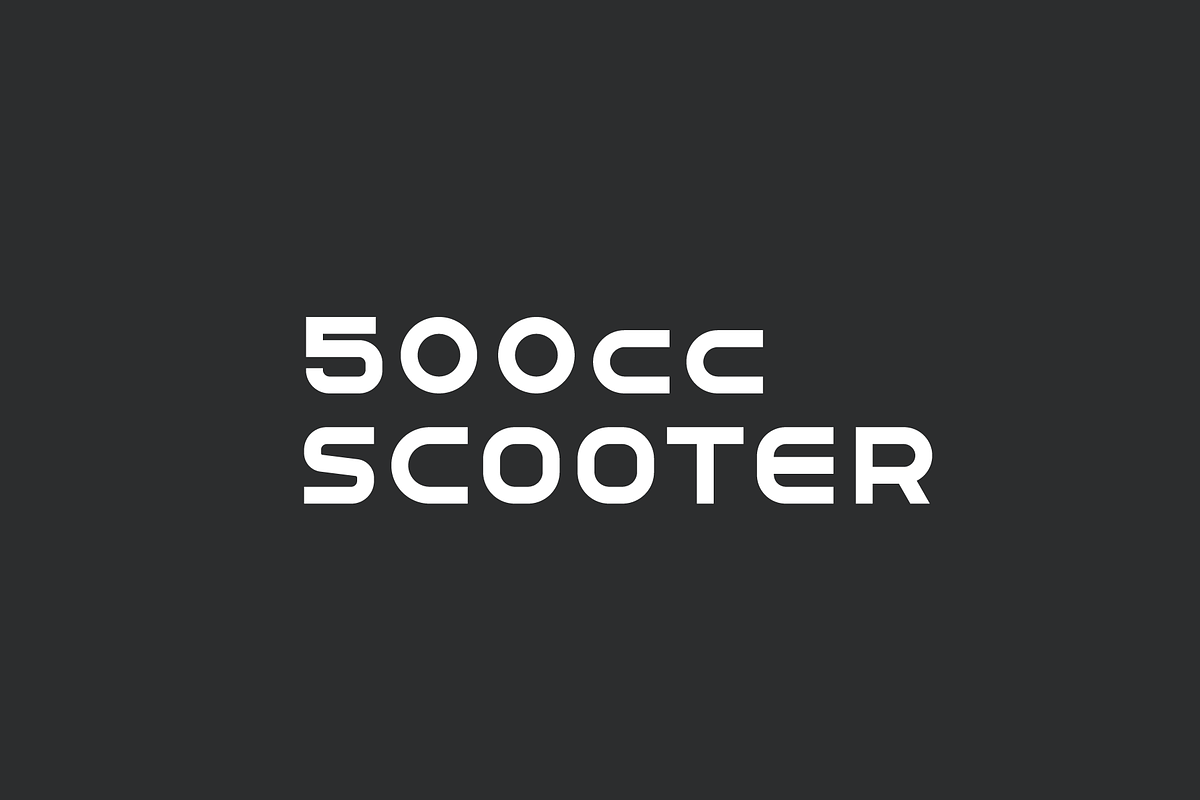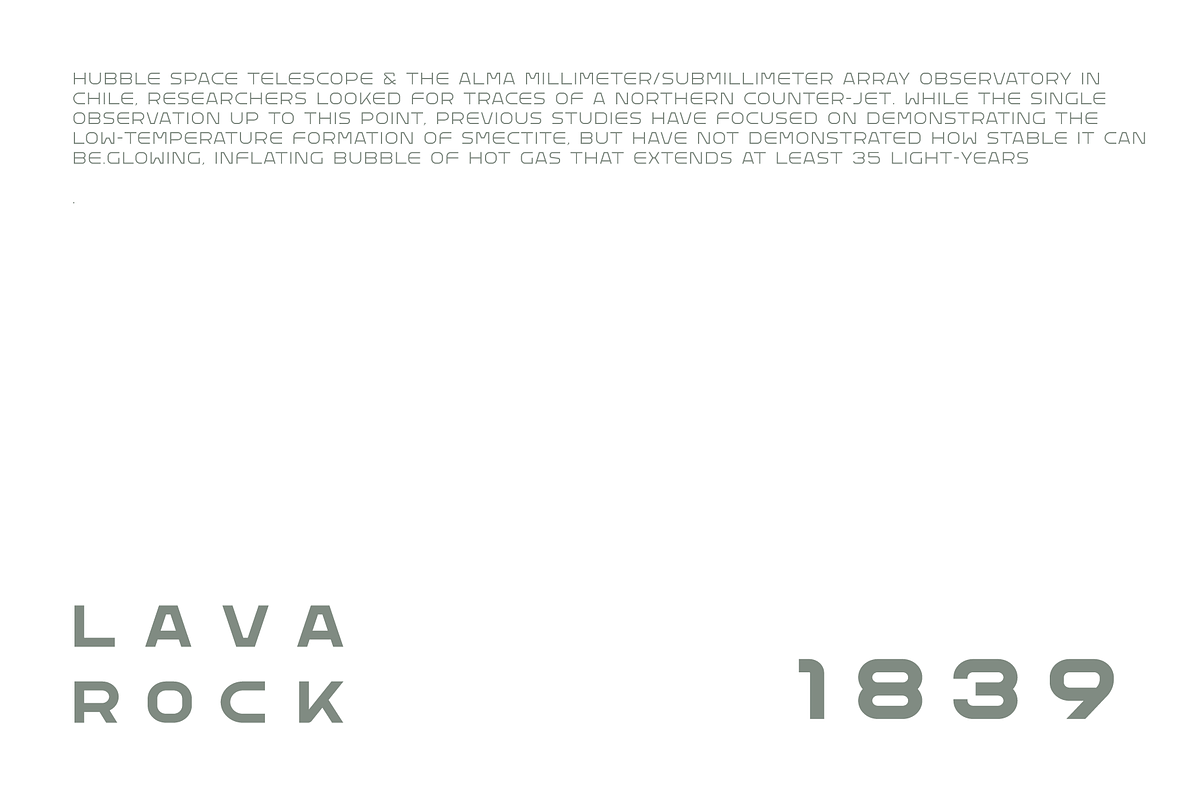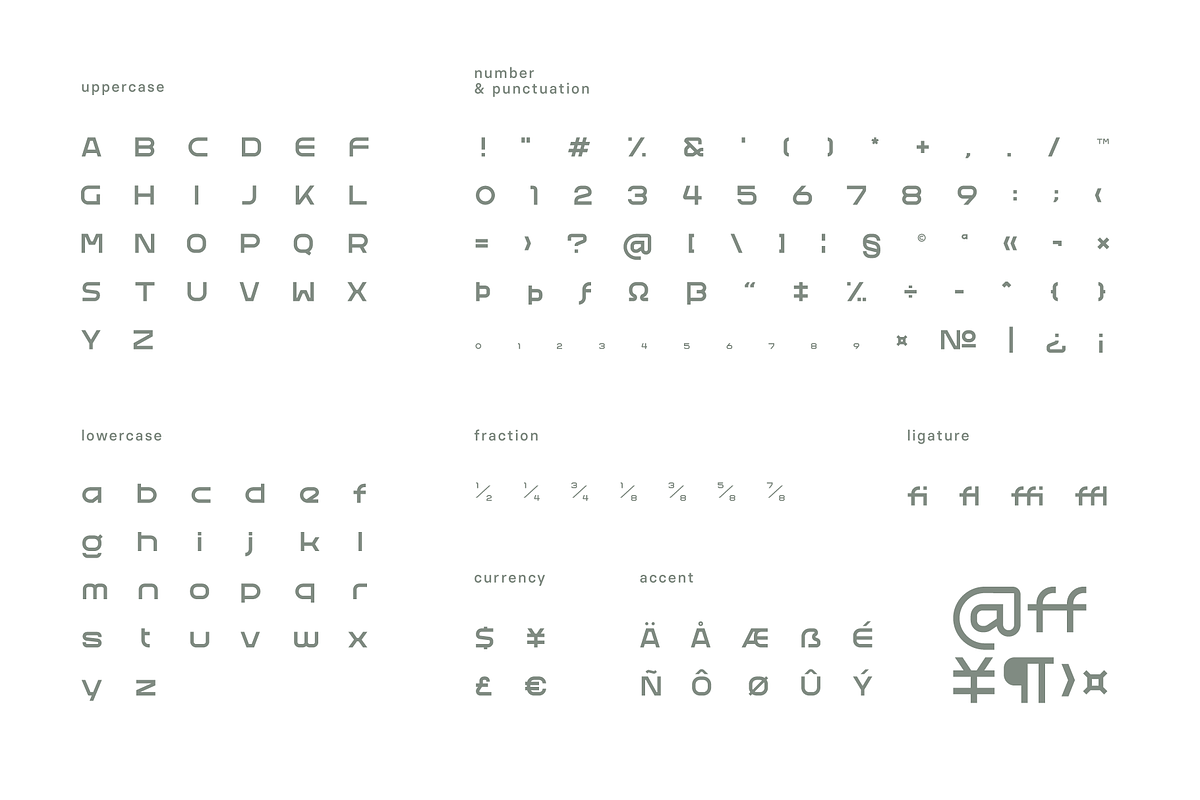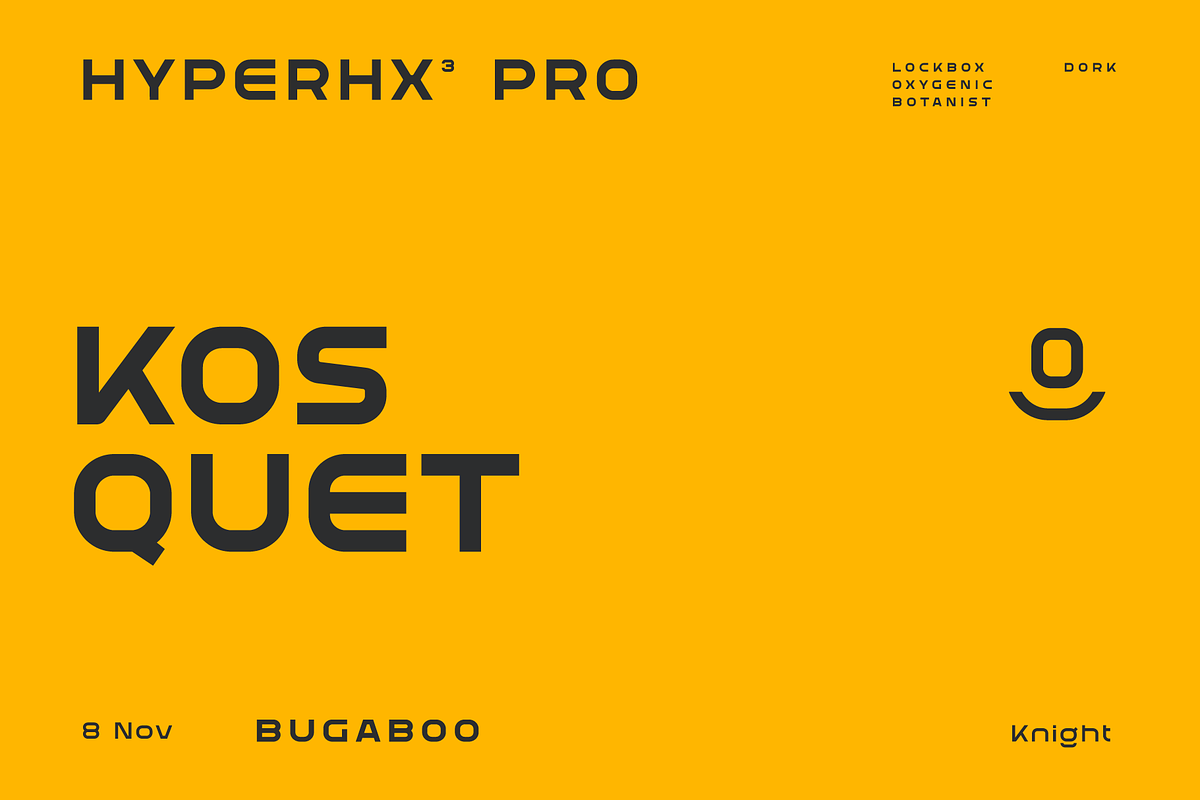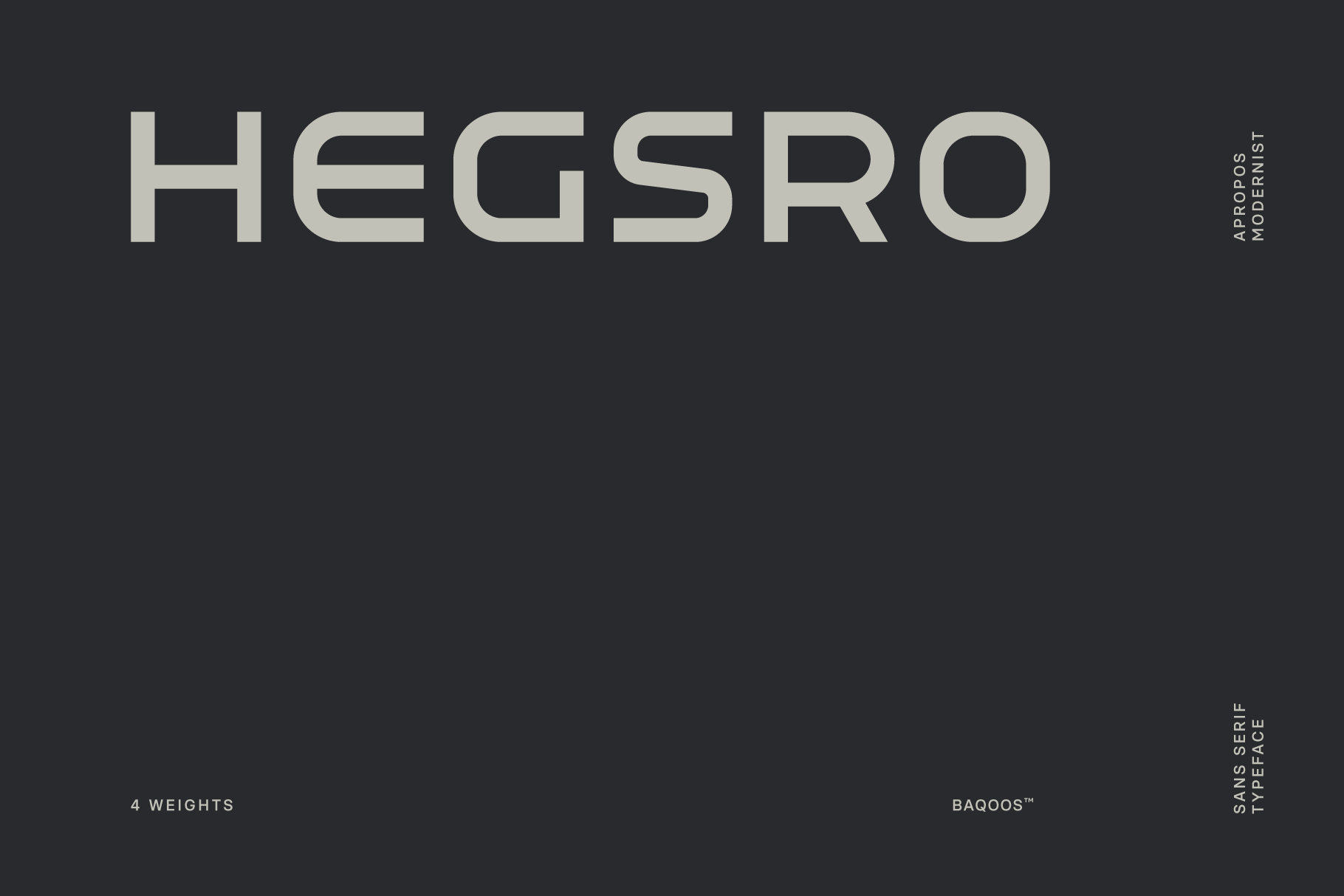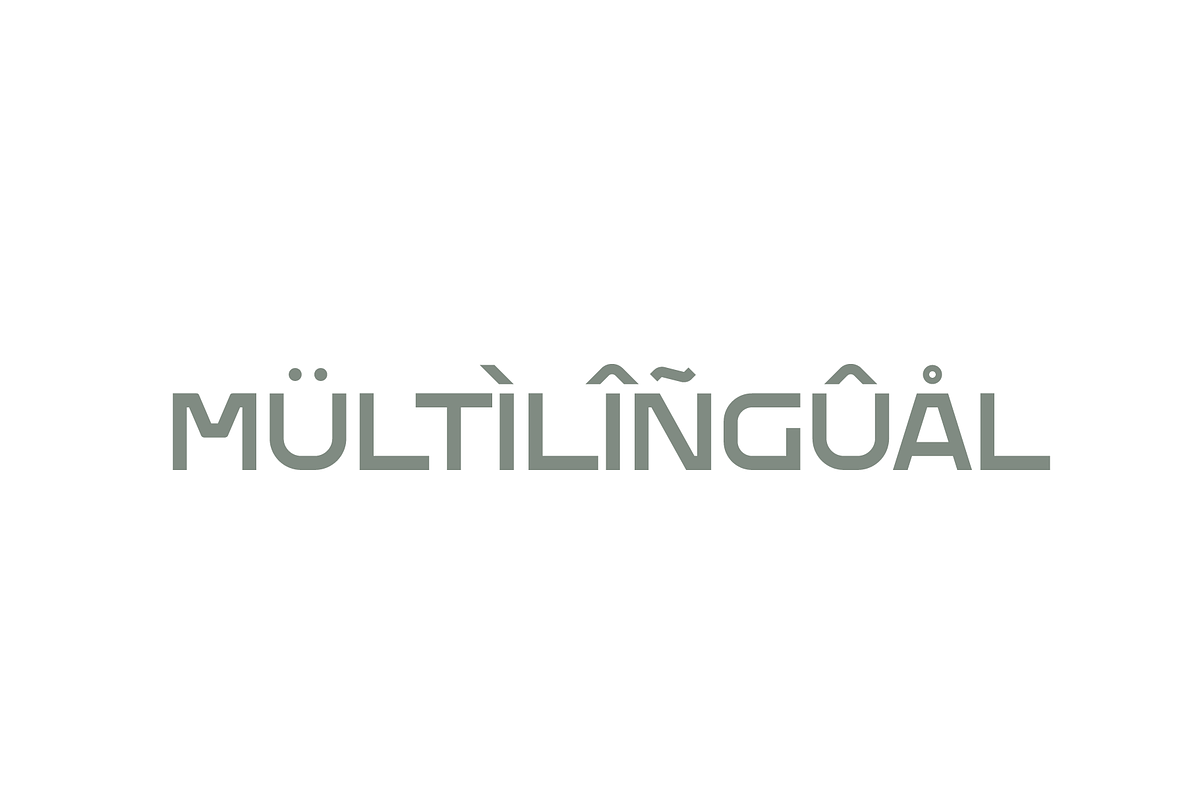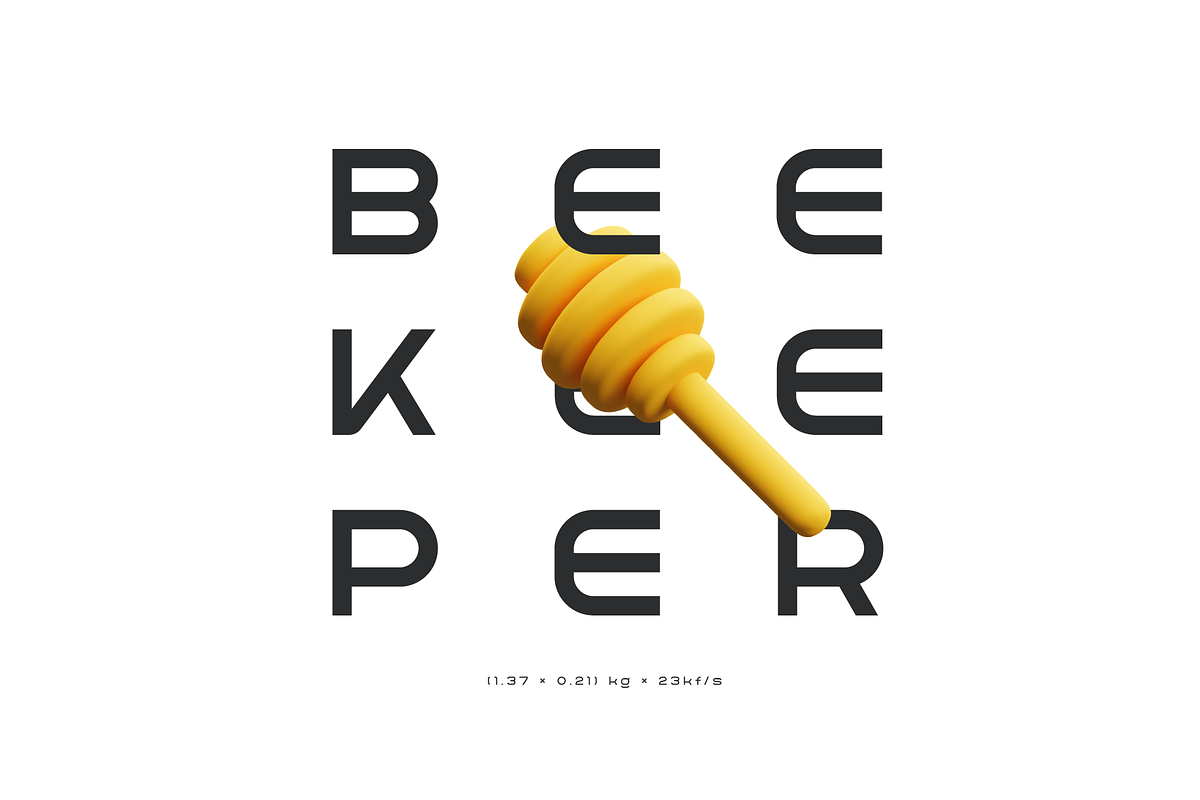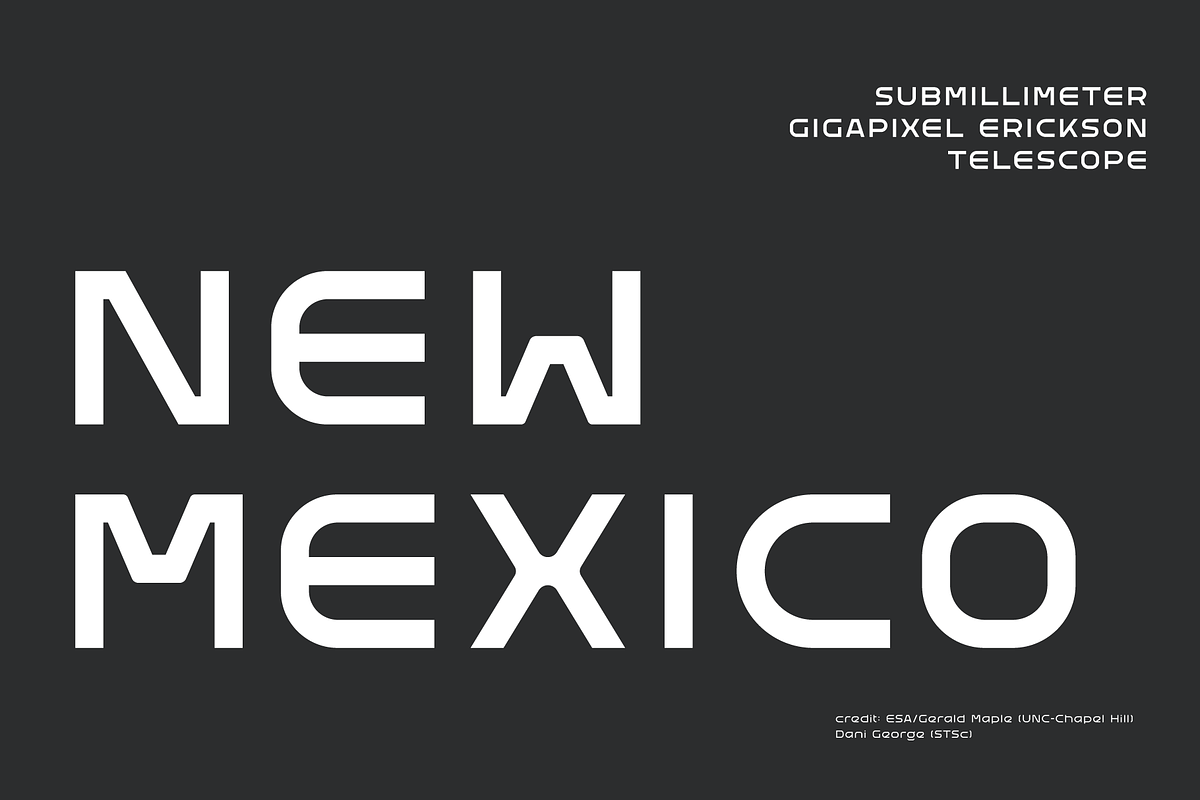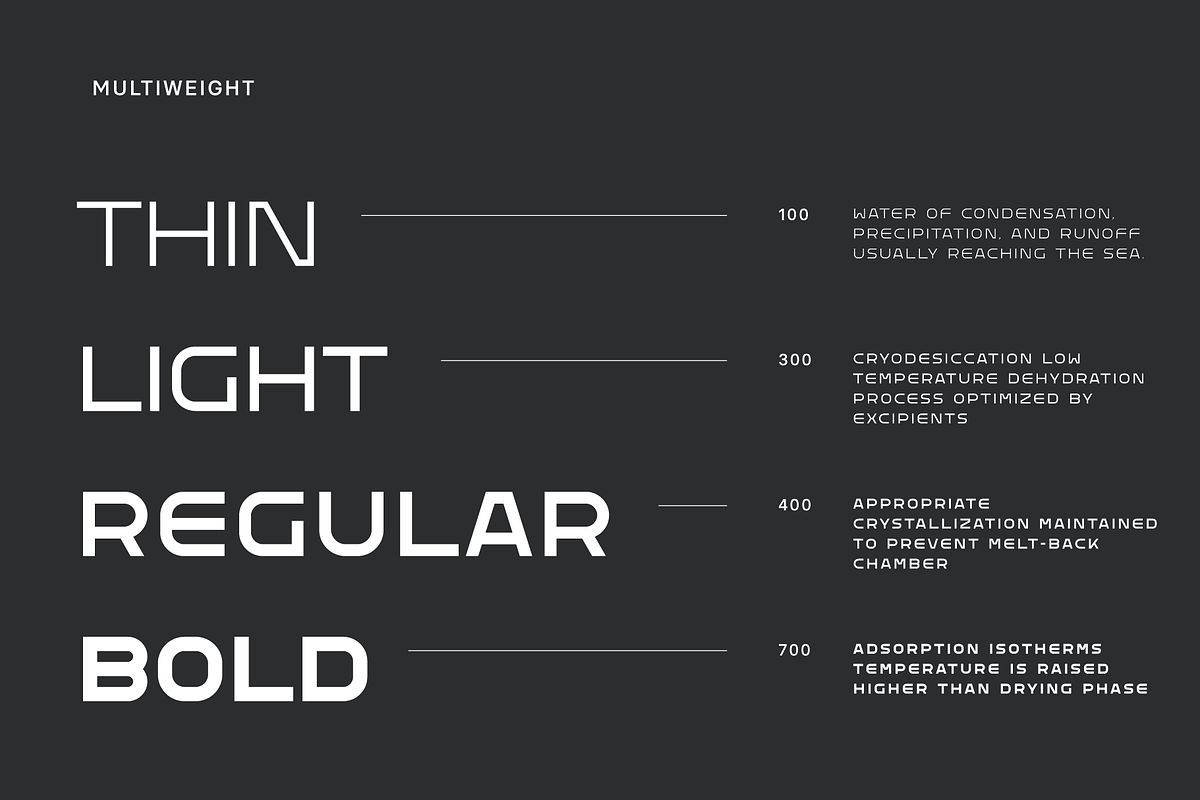
Hegsro Type Font Family
Hegsro is an apropos modernist linear sans apt for headline, editorial, branding, packaging, printed materials and typographic applications. 240+ glyphs with ligatures and fractions provided in opentype .otf and .woff format.